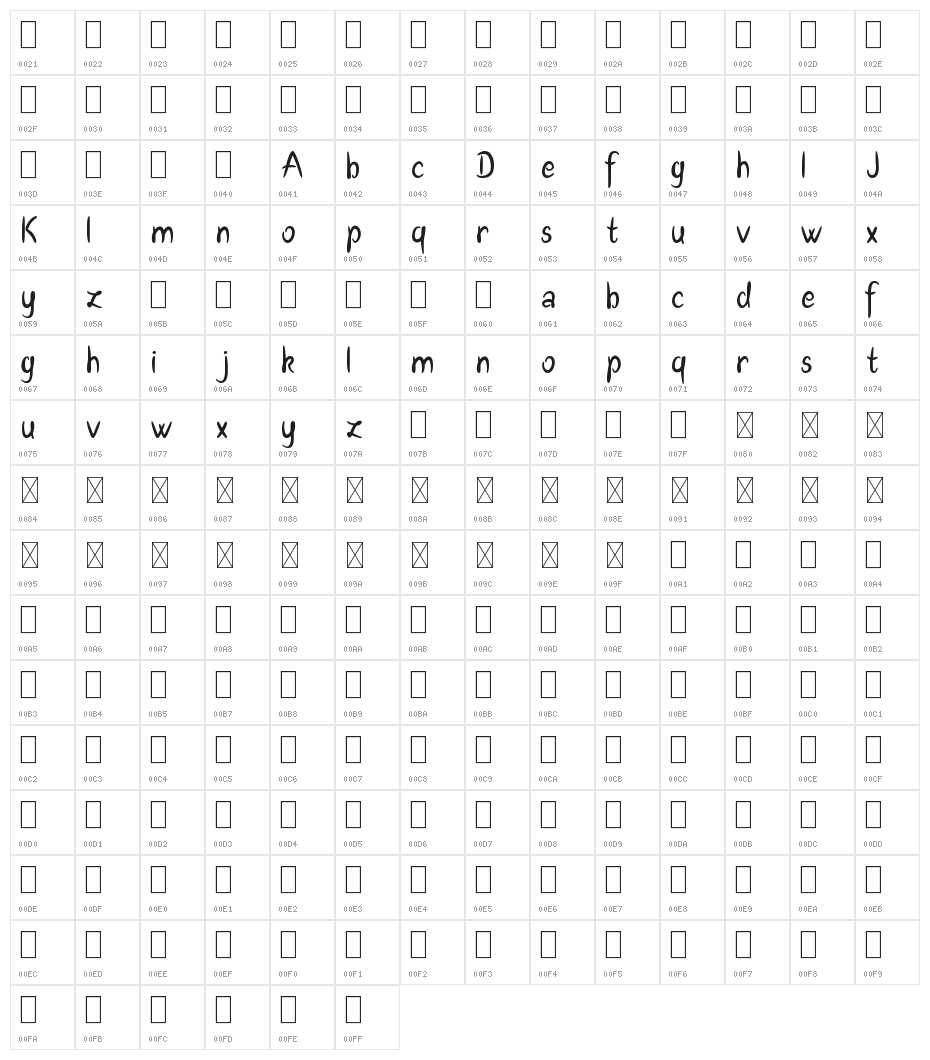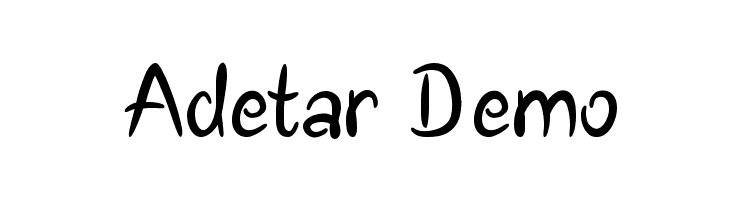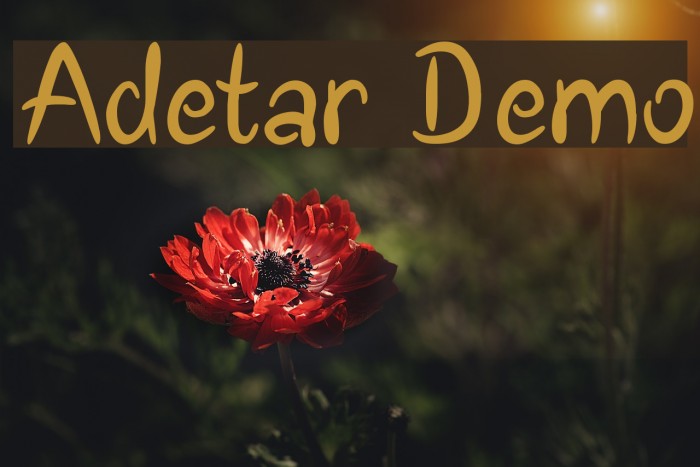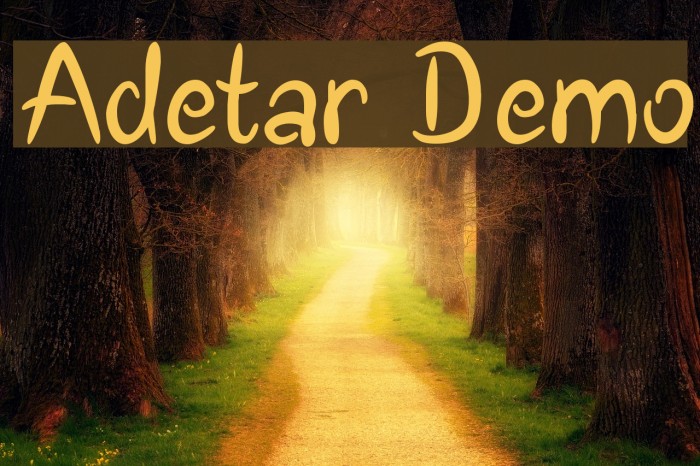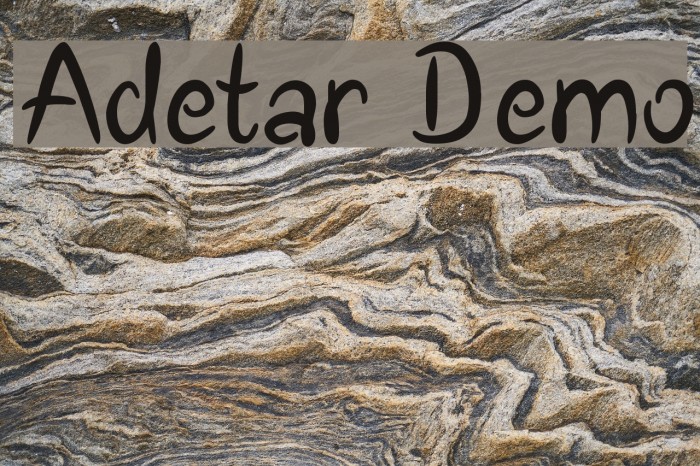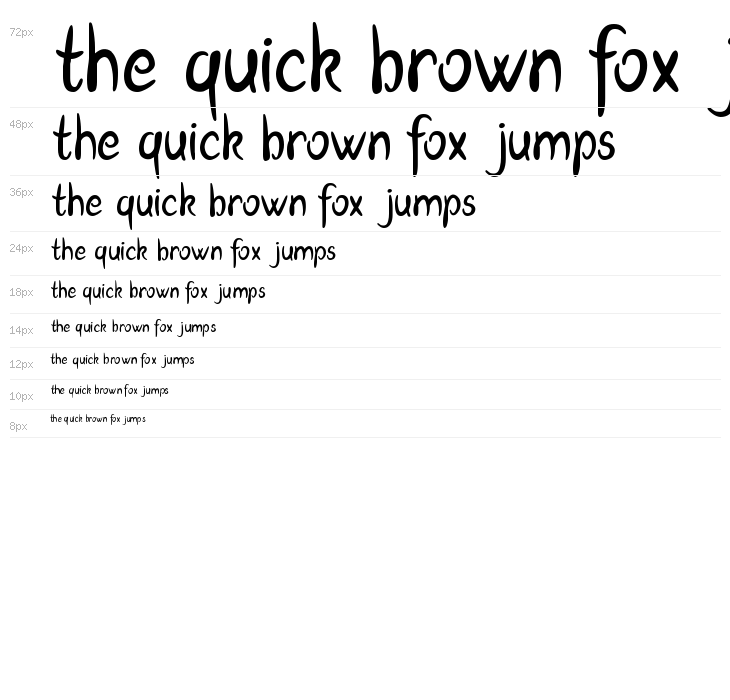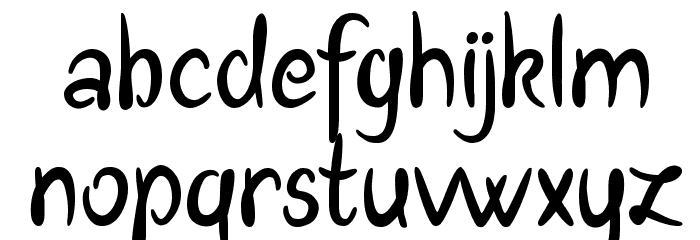
Adetar Demo Font
Adetar Demo Description
This font features a playful and whimsical style, characterized by its flowing, handwritten appearance. The letters have a casual, informal feel with slightly exaggerated curves and strokes that give it a unique personality. The uppercase letters are bold and prominent, while the lowercase letters maintain a consistent flow, enhancing readability. The font's overall design is lively and dynamic, making it suitable for projects that require a touch of creativity and fun. The spacing between characters is balanced, ensuring clarity and legibility.
| Proposed Projects | Ideal for greeting cards, children's books, playful branding, and creative posters. |